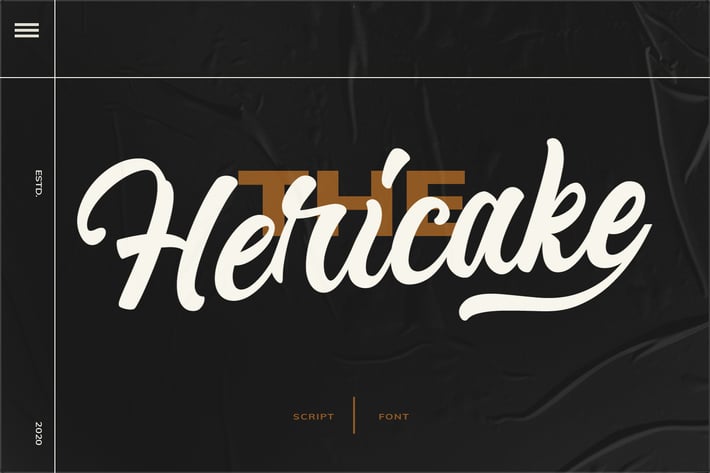
Hericake Logo Type Font
Hericake Logo Type Font is a script bold with alternate that is suitable for branding, weddings, social media, product design, stationery, advertising other romantic projects. anything.
Basic Latin A-Z and a-z
Alternate
Symbols
Kerning